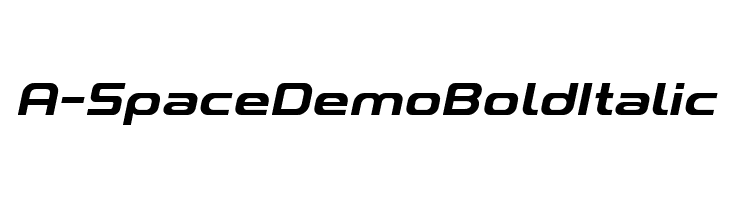
A modern, bold, and italic font with a sleek and dynamic design.
A sleek, modern italic font with a futuristic design.
A sleek, futuristic font with rounded edges and a slight italic slant.